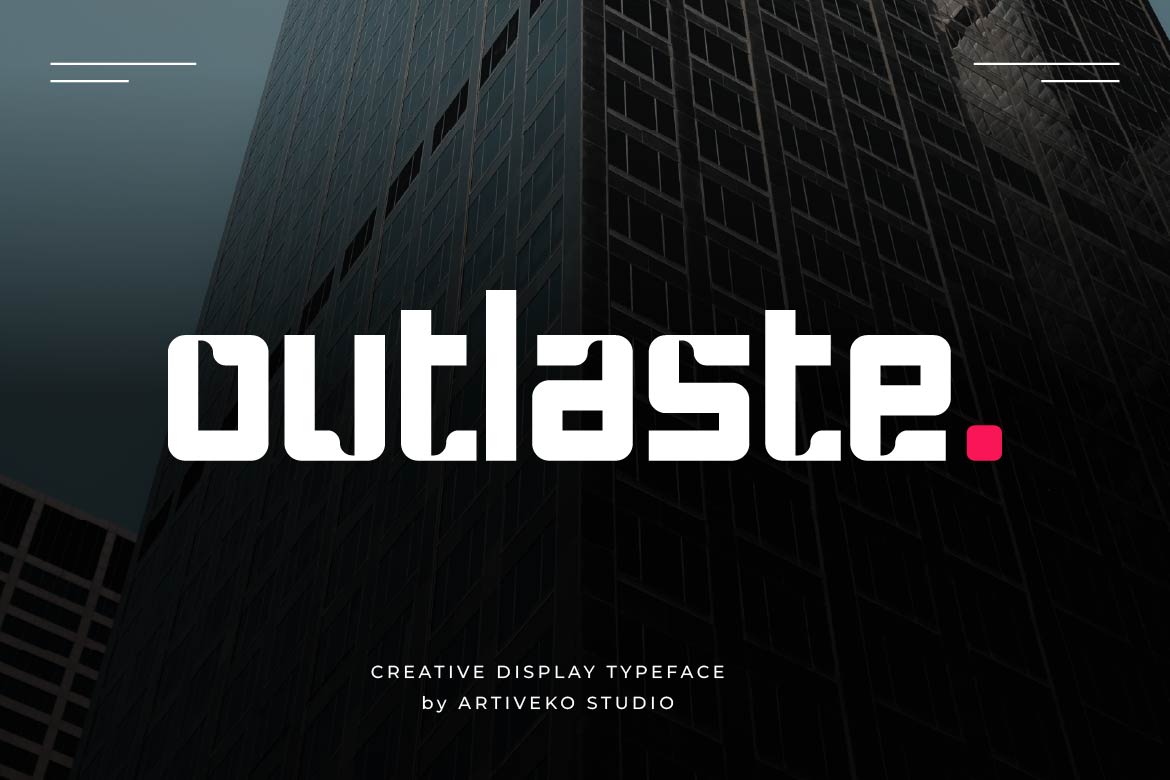
- Outlaste – Modern Creative Font for Logos & Visual Identity
Outlaste is a creative display sans serif typeface crafted to help your designs stand above the ordinary. Featuring bold letterforms, contemporary styling, and distinctive character details, Outlaste delivers a fresh visual personality that is both memorable and versatile.
Designed for logos, branding, posters, packaging, editorial layouts, merchandise, social media, and advertising, Outlaste combines modern simplicity with expressive creativity. Its clean construction ensures excellent readability while its unique display characteristics give every headline a confident and eye-catching appearance.
Whether you’re building a modern brand identity, designing promotional campaigns, or creating standout digital content, Outlaste provides the perfect balance of creativity, clarity, and impact.
Outlaste isn’t just a typeface—it’s a creative identity built to help your brand stand out and outlast the trends.